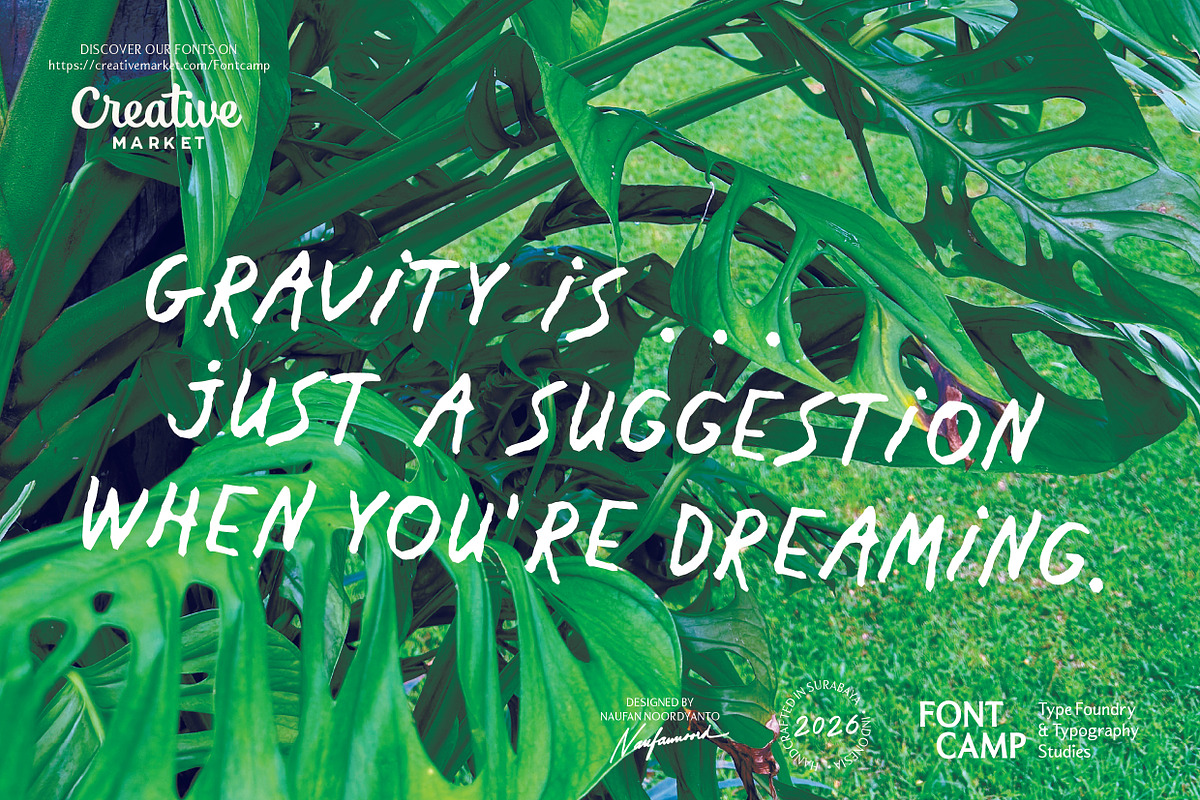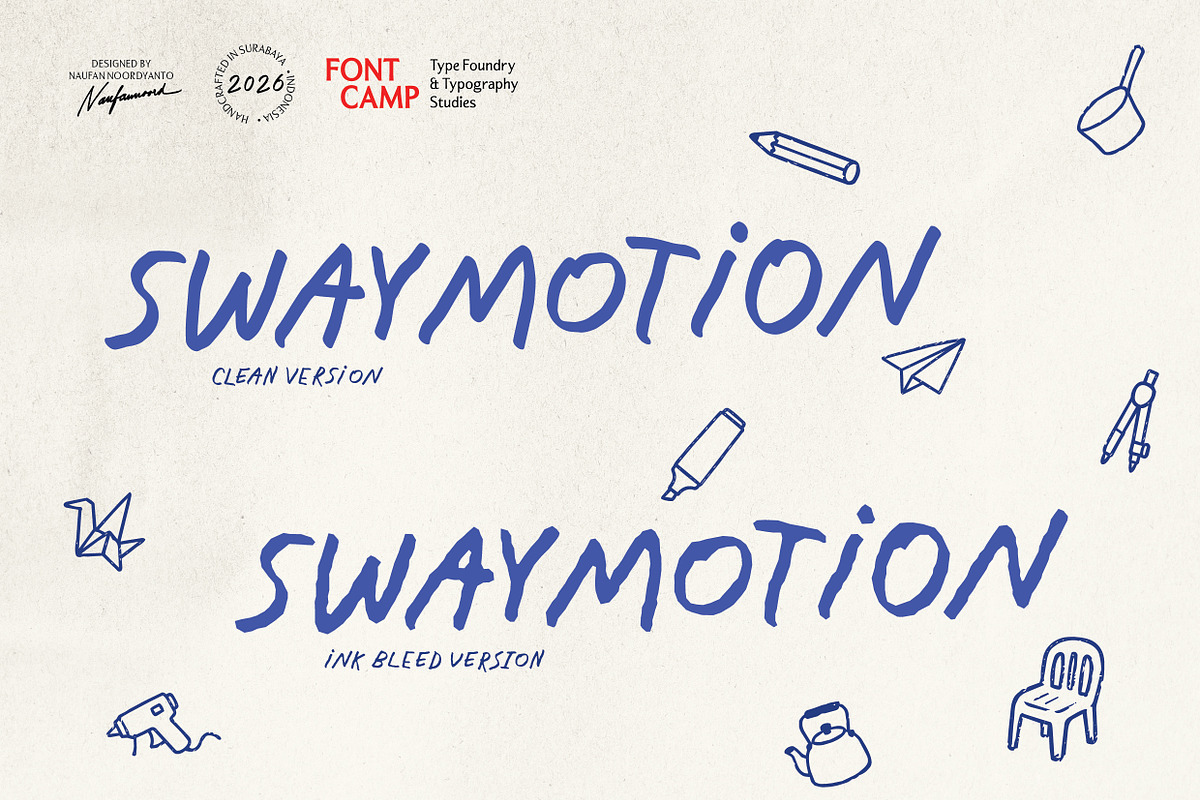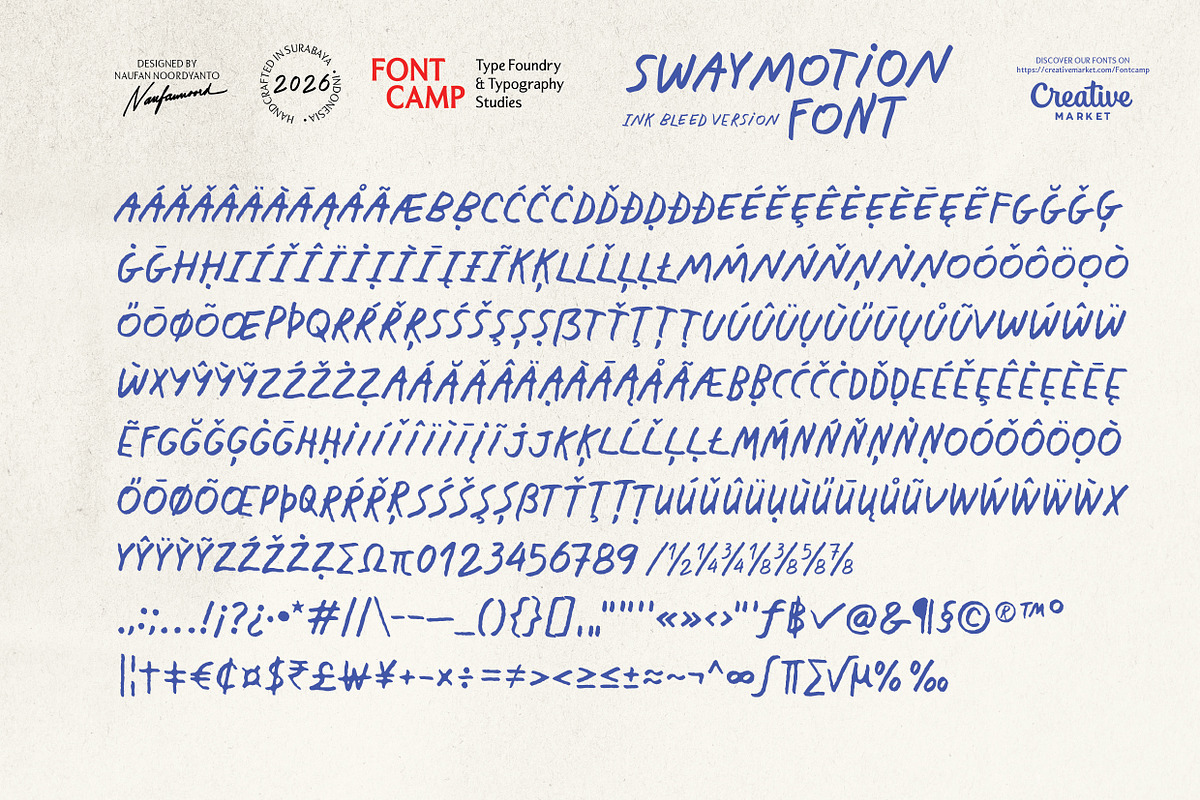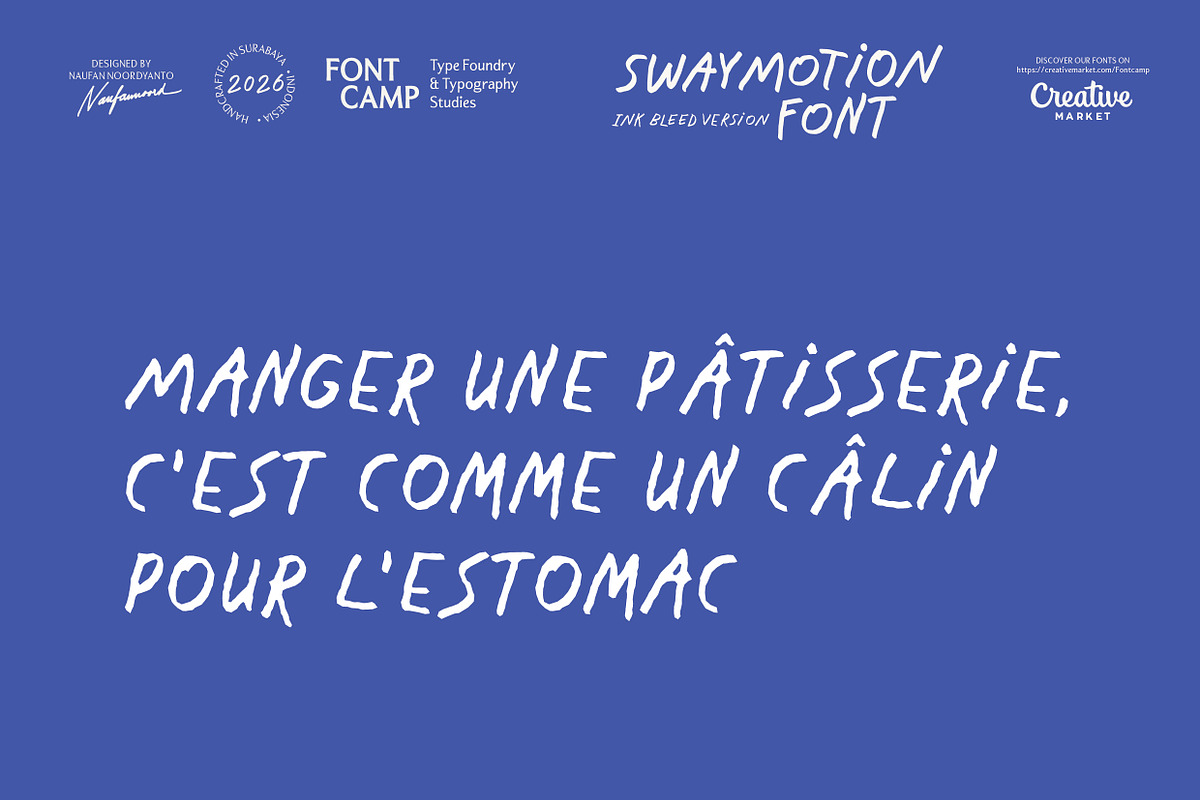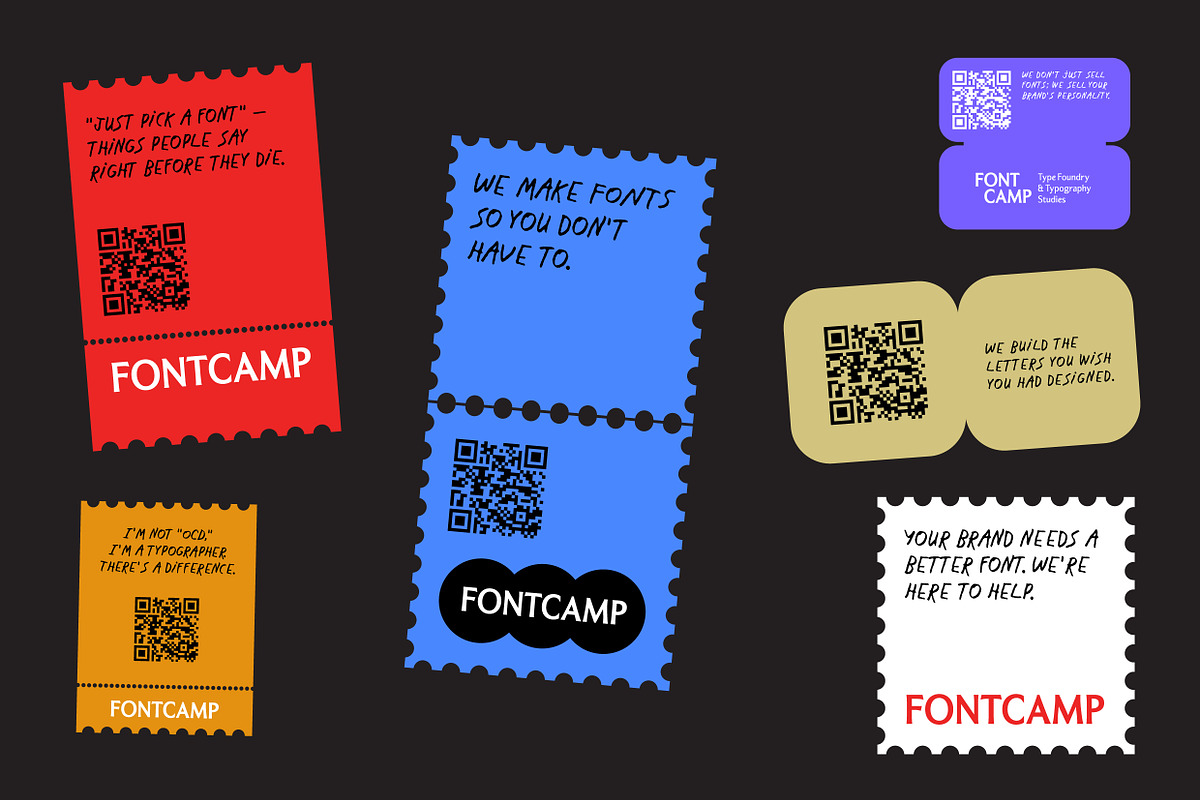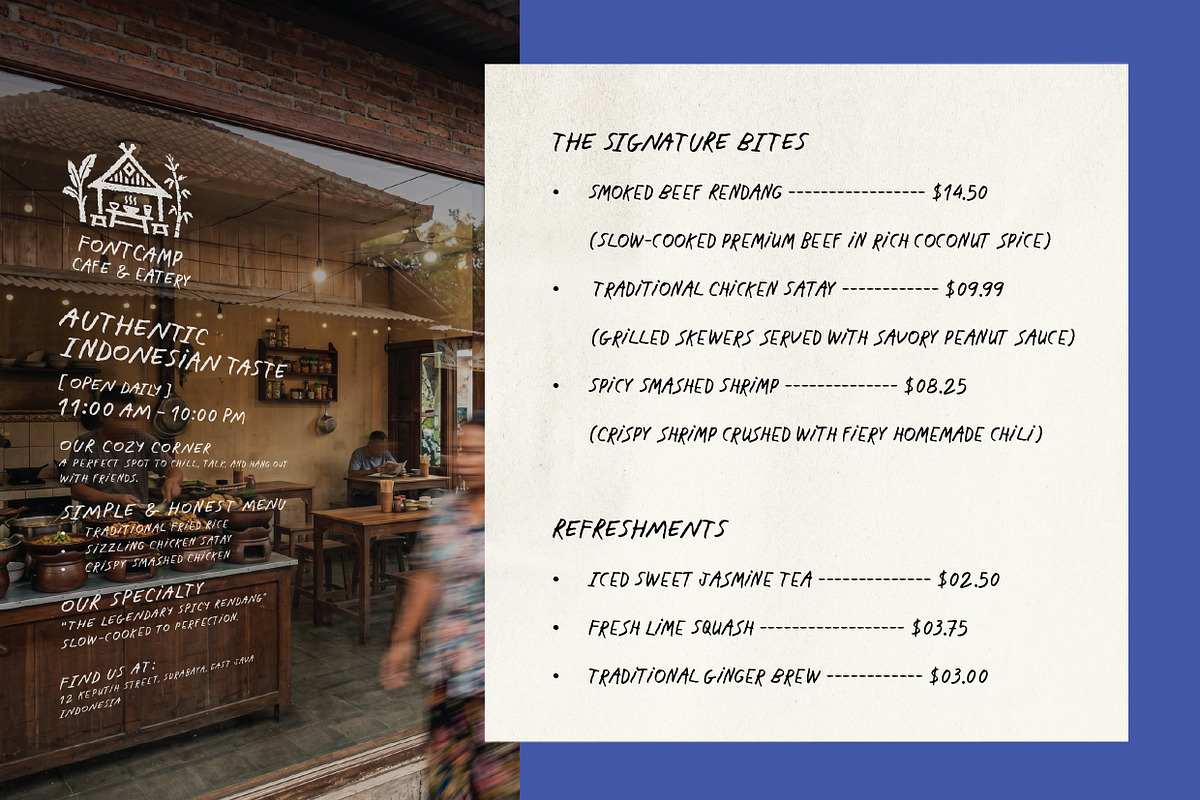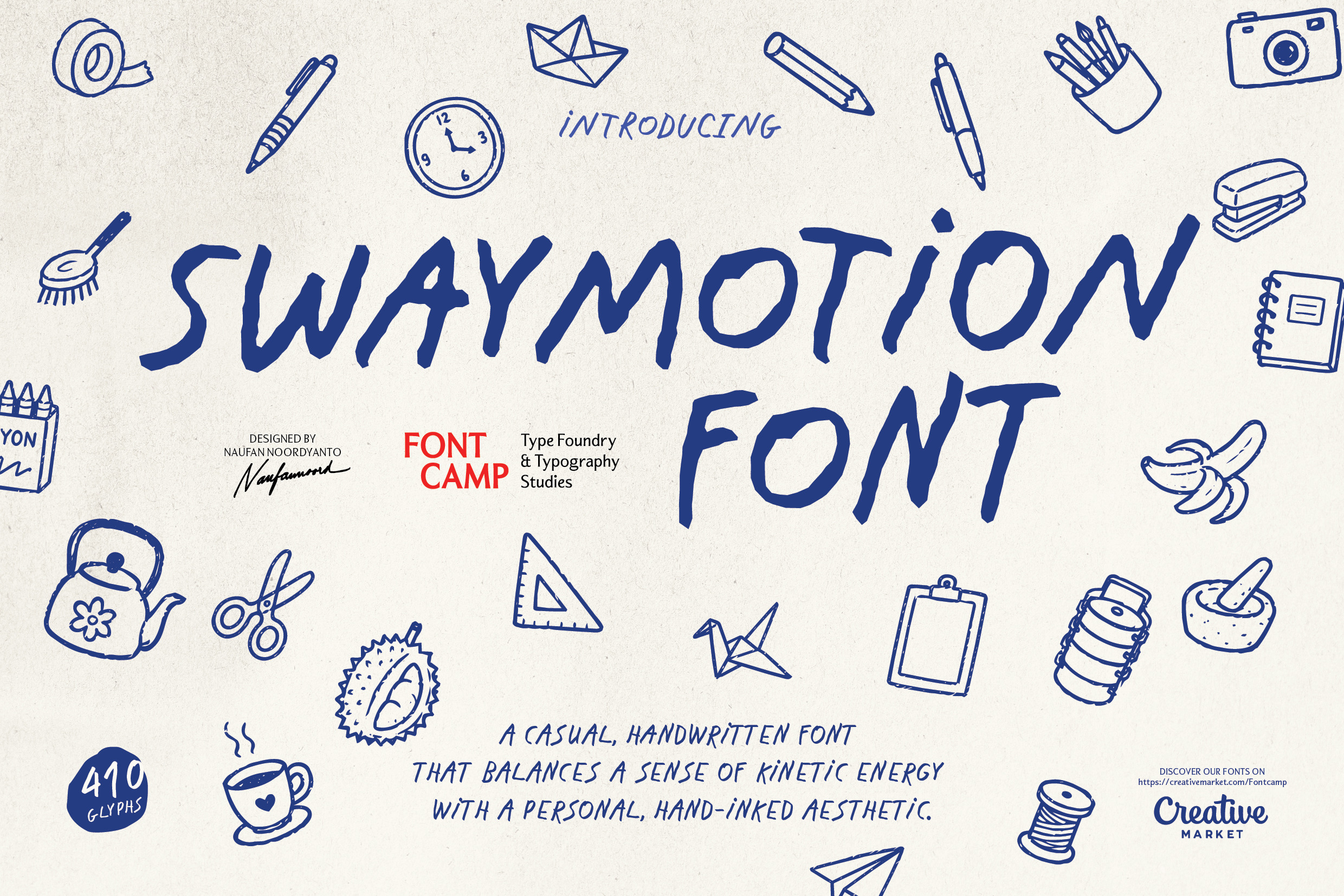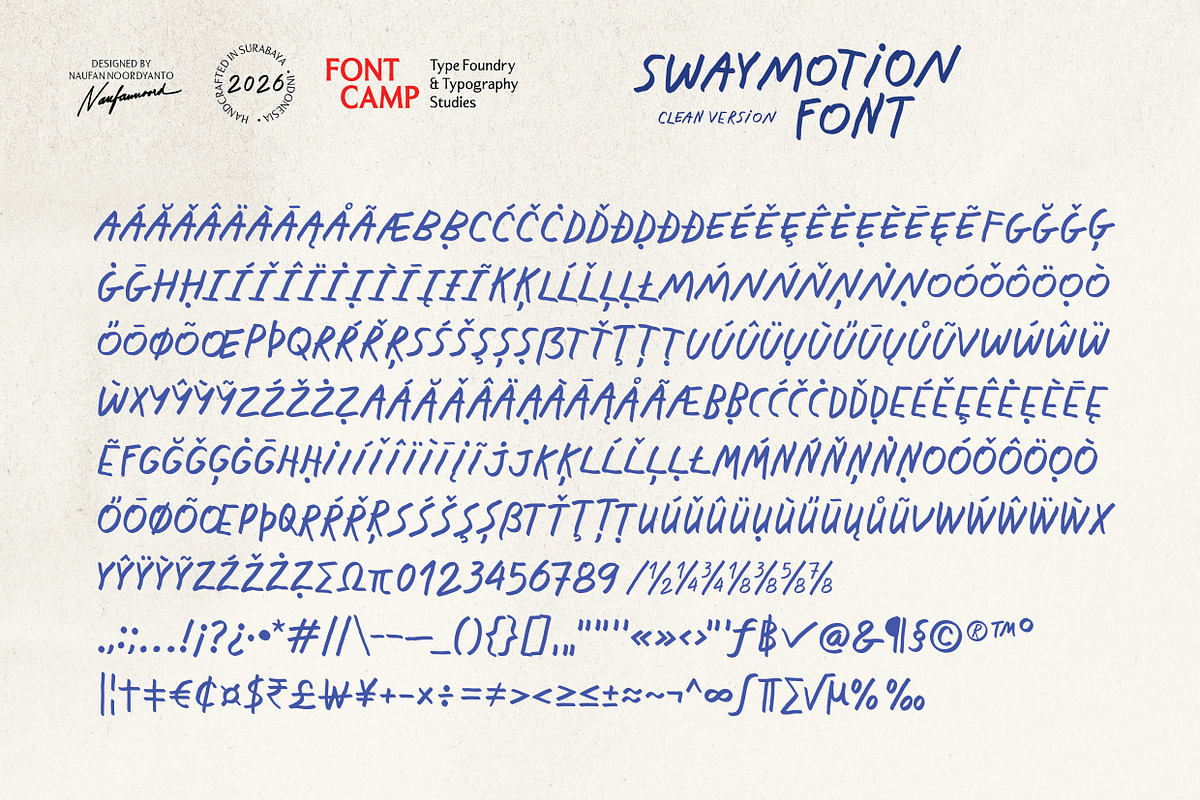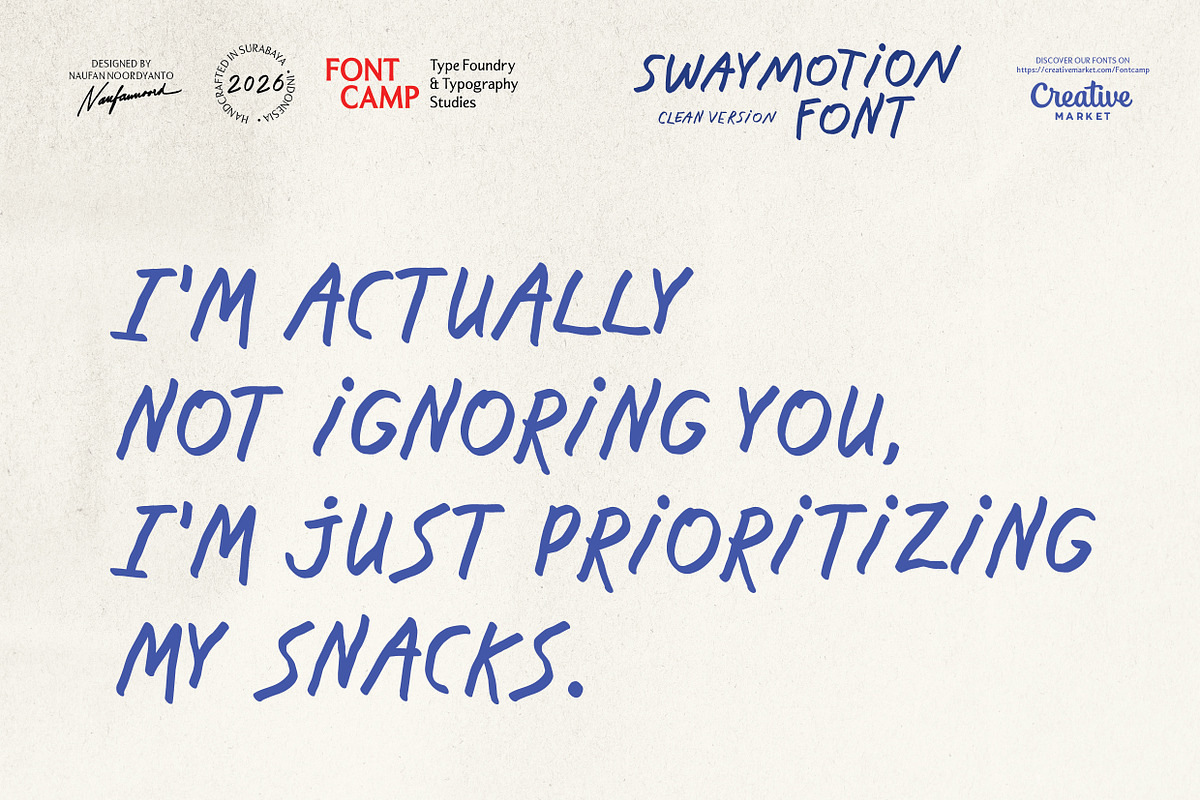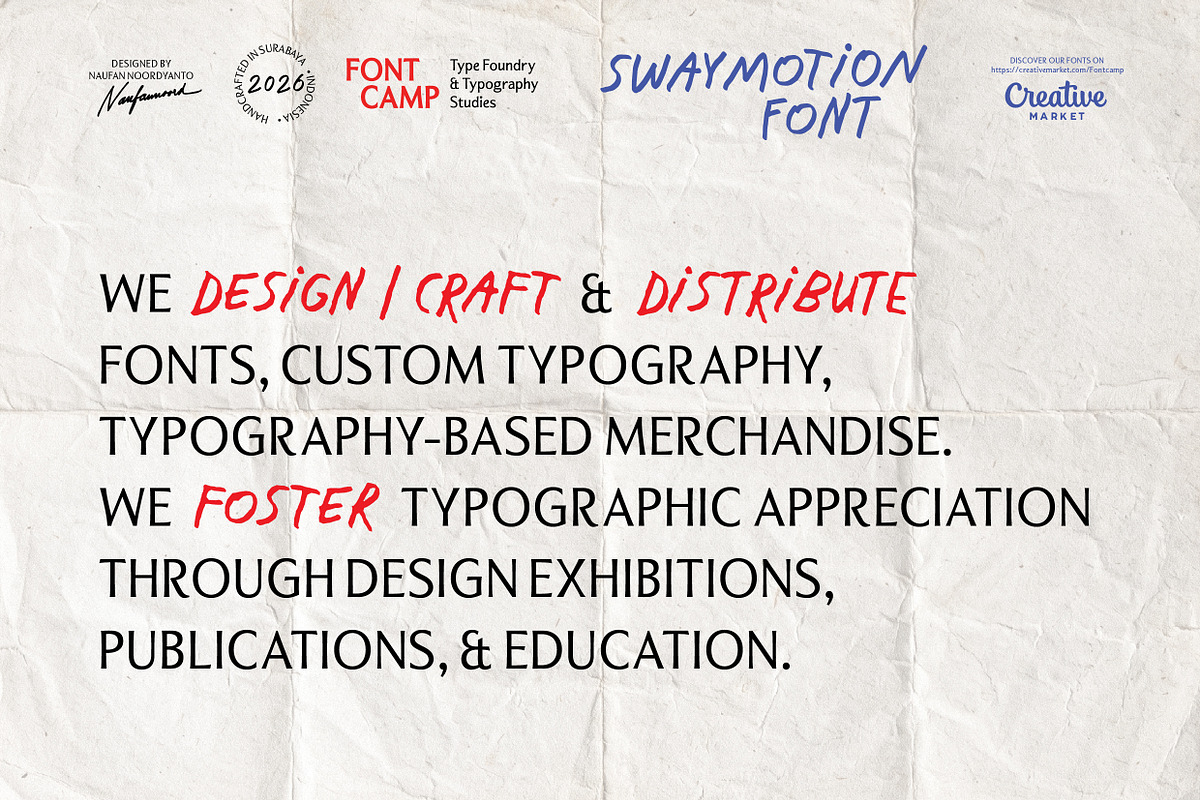
Swaymotion Font
Introducing an "SWAYMOTION" Font.
Swaymotion is a casual handwritten typeface defined by its expressive visual characteristics and dynamic sense of energy. Its most prominent feature is a consistent rightward slant, giving the text a feeling of forward momentum and spontaneous movement, mimicking a quick felt-tip marker script. The letterforms are naturally tall and compact with a heavy reliance on uppercase-style structures, allowing for tight, impactful text layouts that maintain strong legibility.
An authentic, organic touch shines through its variable stroke weights and subtle hand-drawn imperfections at the terminals of each letter. The unique curves and confident horizontal strokes create a personal, approachable, and artistic aesthetic. This lively and energetic structure makes Swaymotion an ideal choice for modern branding projects, eye-catching poster headlines, casual signage, or any creative design that embraces a raw, street-art vibe.
Expansive character library: Engineered with 410 meticulously crafted glyphs, providing full coverage for high-impact displays, symbols, and comprehensive punctuation across two distinct styles: Regular (clean stroke version) and Bleed Regular (rough stroke version).
Commanding All-Caps design: Specially structured as an All-Caps typeface with different letterforms between uppercase and lowercase keys, optimized for casual headlines, bold logotypes, and tactical branding.
Global linguistic support: Built with an extended character set to ensure seamless compatibility with multiple languages, supporting diverse diacritics and special ligatures.